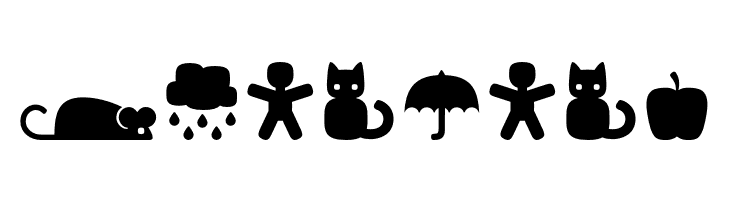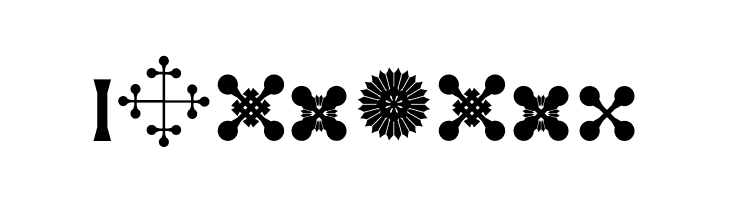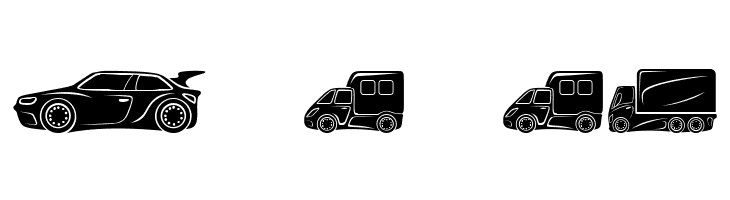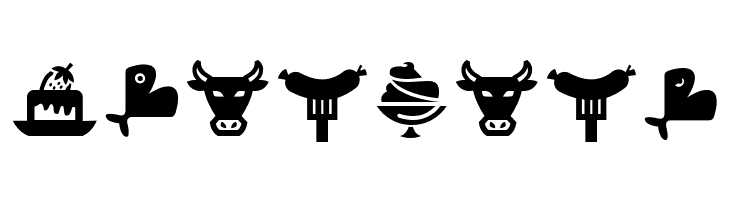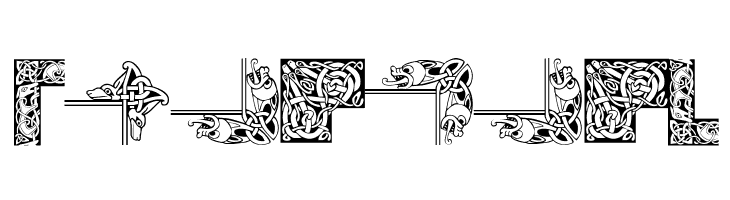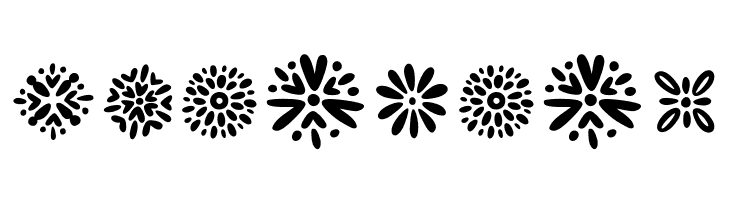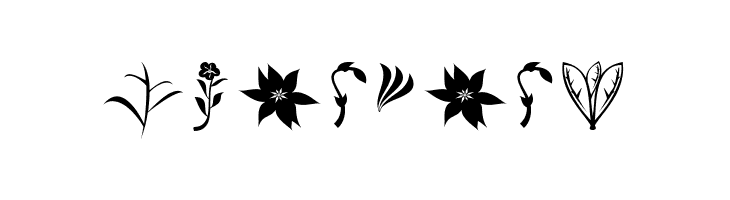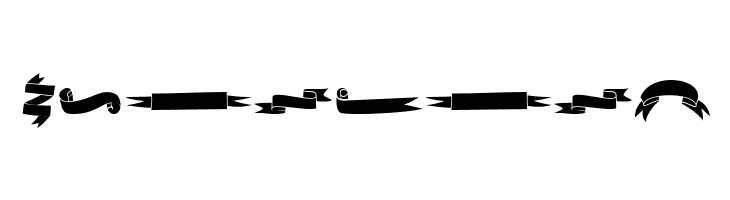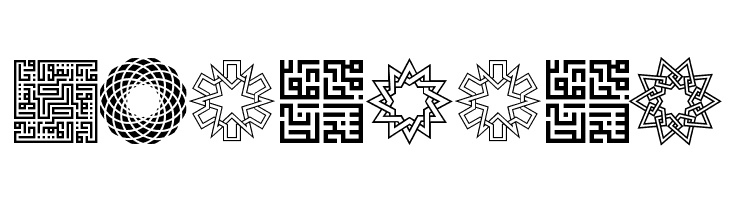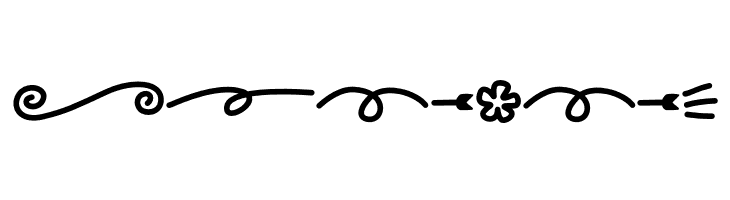
Ornate, emblematic symbols reminiscent of Japanese kamon.
A symbol and dingbat font featuring footprints and assorted icons.
A decorative insect-themed dingbat font with detailed illustrations.
Decorative icon font with seasonal and nature-themed pictograms.
A collection of sunburst and radiating line decorative motifs.
Ornamental dingbat font with decorative frames and borders.
Ornamental dingbat set with swirling, floral, and abstract motifs.
An ornate and decorative font featuring intricate patterns and embellishments.
Ornamental font with gemstone and jewelry-inspired symbols.
Religious pictogram dingbat font with bold, high-contrast icons.
Ornamental floral and flourish dingbats with a vintage feel.
Ornamental fleurons and decorative motifs with a vintage, classical style.
A collection of decorative floral borders featuring intricate rose patterns.
Pattern-based decorative font with geometric and ornamental motifs.
A bold, rounded dingbat font with diverse pictograms and playful shapes.
Ornamental dingbat font with floral and geometric motifs.
A decorative dingbat font of outlined vehicle icons.
A bold icon font with food and kitchen motifs.
Ornamental dingbat font with bold, circular floral motifs.
Ornamental, geometric Arabesque-inspired decorative glyphs.
A bold, decorative floral dingbat set with playful, abstract flower motifs.
A decorative floral and botanical dingbat collection.
Intricately detailed decorative banners for elegant design projects.
A gem-themed decorative icon set with geometric diamond illustrations.
Ornamental geometric font with Islamic art influences.
Hand-drawn decorative border and motif dingbats.
A bold ornamental dingbat collection with floral, geometric, and flourish motifs.
Highly decorative hexagonal ornamental glyphs with intricate patterns.
Ornamental vector symbols with an ancient, mystical style.
A religious-themed dingbat font with Bible and Christian iconography.
Ornate stencil-style decorative glyphs with bold, intricate designs.
Medical-themed dingbat font with caduceus and healthcare symbols.
Hand-drawn decorative lines and sketched placeholder boxes.